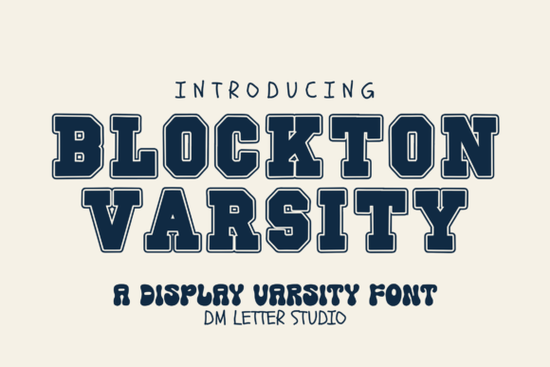
If you're creating designs that need to project confidence, energy, and a strong visual identity especially for schools, sports teams, or athletic brands you’ve probably looked for a font that’s bold without being messy, classic but still modern. That’s where Blockton Varsity Font comes in. It’s a display font built with thick, balanced block letterforms that carry a clear collegiate spirit, making it instantly recognizable whether it’s on a jersey, poster, or storefront sign.
What sets Blockton Varsity apart is how cleanly it handles both digital layouts and physical production. The solid shapes cut smoothly for vinyl, screen print cleanly on apparel, and hold up well even in small-scale stickers or laser-cut projects. Because of its consistent structure, you won’t spend extra time adjusting spacing or fixing jagged edges it just works.
Where does Blockton Varsity work best?
This font shines in contexts that call for pride, unity, and strength:
- School branding – think yearbooks, banners, and event posters
- Team merchandise – from hoodies to water bottles
- Sporty logos – especially when paired with badges or arched text
- Signage and packaging – where readability at a glance matters
Because of its geometric clarity, Blockton Varsity handles stacked layouts and circular arrangements (like classic varsity patches) with ease. You’ll also find it pairs naturally with minimalist sans-serifs or clean serifs for supporting text avoid pairing it with another heavy display font, as that can create visual clutter.
How do I use it effectively in my designs?
Start simple. Use Blockton Varsity for short, impactful phrases: team names, mottos like “Rise Up” or “Built to Win,” or school initials. Then, add secondary information dates, locations, descriptions in a lighter, neutral typeface. This contrast keeps your design bold but not overwhelming.
Color plays a big role too. Classic varsity pairings like navy and white, black and gold, maroon and cream, or forest green and ivory reinforce the athletic heritage while keeping things polished. Avoid overly bright or neon combinations unless your brand specifically calls for that energy.
How does it compare to other bold display fonts?
Not all thick fonts deliver the same balance of weight and legibility. For example, if you’ve tried extra-bold display fonts before, you might have run into issues with letters blurring together at smaller sizes. Blockton Varsity avoids that with carefully spaced, open forms.
Similarly, while some varsity-style fonts lean too retro or cartoonish, Blockton Varsity keeps a modern edge clean lines, no unnecessary flourishes. If you’re exploring alternatives, you might also consider North West for a more condensed look, or Vertical Dentist if you need tall, narrow lettering. But for authentic, versatile varsity energy, Blockton stands out.
And if your project calls for something softer say, a complementary script for quotes or accents you could layer in something like Dolce Love for contrast, though that’s better suited for lifestyle than sports themes.
Tips for crafters and print-on-demand sellers
If you’re selling custom gear or creating physical products:
- Test print first – even though the font cuts cleanly, always do a small test run for your specific material (vinyl, fabric, paper, etc.).
- Avoid ultra-thin outlines – Blockton Varsity is meant to be solid; outlining it too thinly can break its impact.
- Use vector formats when possible – especially for scaling to large signage or embroidery digitizing.
For hobbyists or small business owners building a local team brand, this font gives you professional results without needing advanced typography skills. Its consistency means your T-shirt design today will match your banner next season no guesswork.
Quick checklist before you finalize your design
- Is the main message short and bold? (Ideal for Blockton Varsity)
- Is supporting text in a simpler, readable font?
- Are colors aligned with classic varsity combos or your brand palette?
- Have you tested output at actual size (especially for small prints)?
With these steps, Blockton Varsity Font becomes more than just type it becomes part of your team’s visual identity.